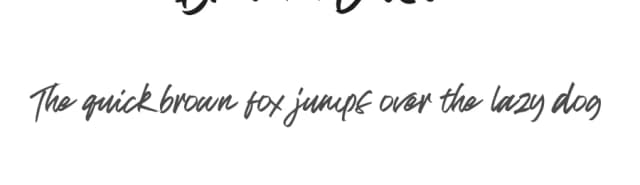
About Brihtania Font
Brihtania ships with 2 OpenType features you can switch on in apps that support them (Illustrator, InDesign, Affinity, Figma, CSS font-feature-settings).
Brihtania supports 104 languages.
Brihtania Font is a script font that shines as a display or heading face. Pair it with a clean sans-serif or serif font for body text β the contrast creates a clear hierarchy while the two styles stay balanced and easy to read.
Brihtania Font